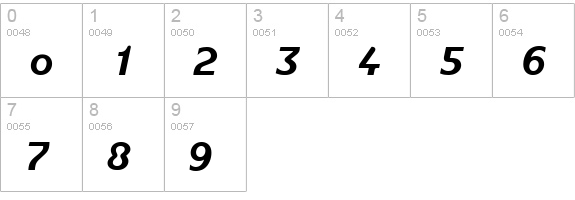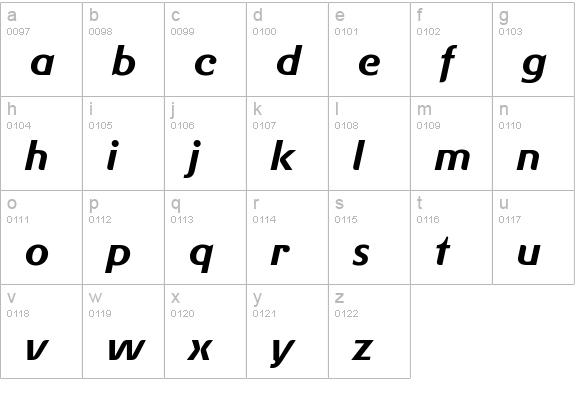
Gerstner Original Medium Italic is a balanced, medium-weight, italic variant in the Gerstner typeface family \xE2\x80\x94 well suited to sub-headlines, navigation, and balanced editorial work.
The Gerstner Original Medium Italic font exudes a sense of elegance and sophistication with its unique blend of classic and modern design elements. Its italic style adds a touch of flair and fluidity to any text, making it perfect for conveying a sense of creativity and dynamism. The medium weight strikes the perfect balance between being bold and refined, making it versatile for a wide range of design projects. What sets the Gerstner Original Medium Italic font apart is not just its striking aesthetics, but also the fact that it is freely available for download at FontsMarket.com. This means that designers and creatives can easily access this high-quality font without any cost, allowing them to elevate their projects with a professional and polished look. Whether used for branding, editorial design, or web content, the Gerstner Original Medium Italic font is sure to make a lasting impression with its timeless appeal and effortless charm.